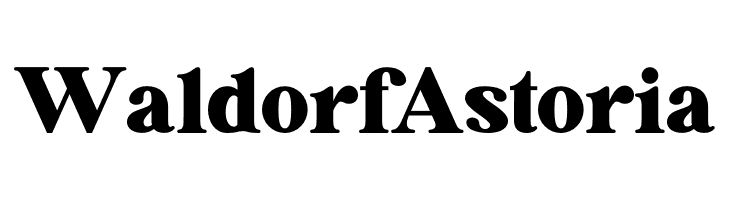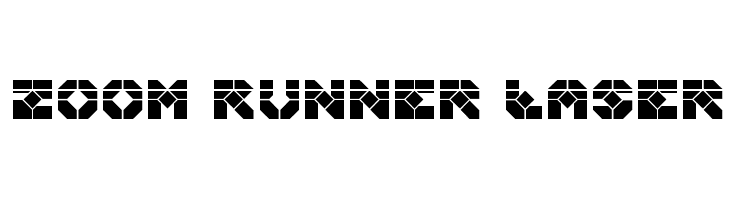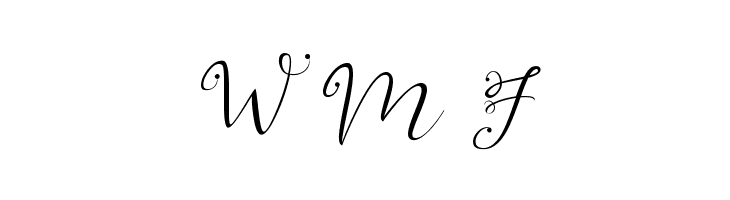
A bold, geometric font with a futuristic and digital aesthetic.
A whimsical serif font with playful bears peeking over each character.
A pixelated, LED-style font with a modern, digital aesthetic.
A decorative monogram font with ornate, floral frames around elegant, italicized letters.
A bold, artistic script font with elegant curves and dramatic swashes.
A playful, bold font with a whimsical, hand-drawn style.
A modern, elegant font with slender letterforms and high contrast strokes.
A classic serif font with bold, elegant curves and strong presence.
An elegant, flowing script font with modern, dynamic strokes.
A casual, handwritten italic font with a smooth, flowing style.